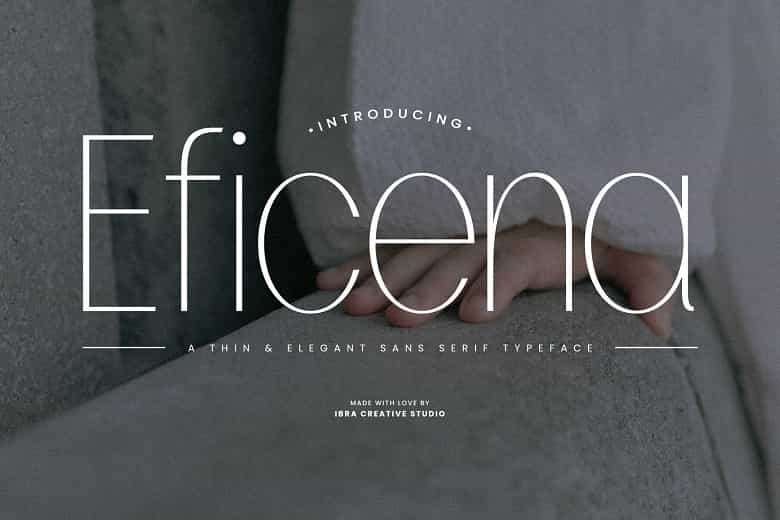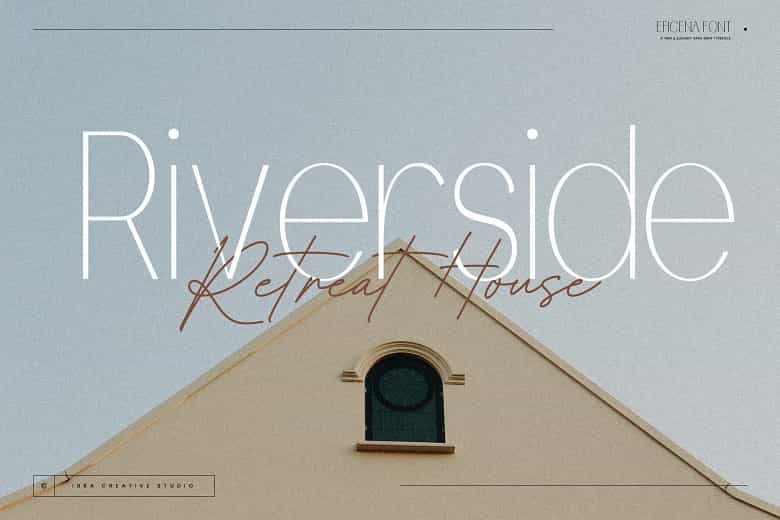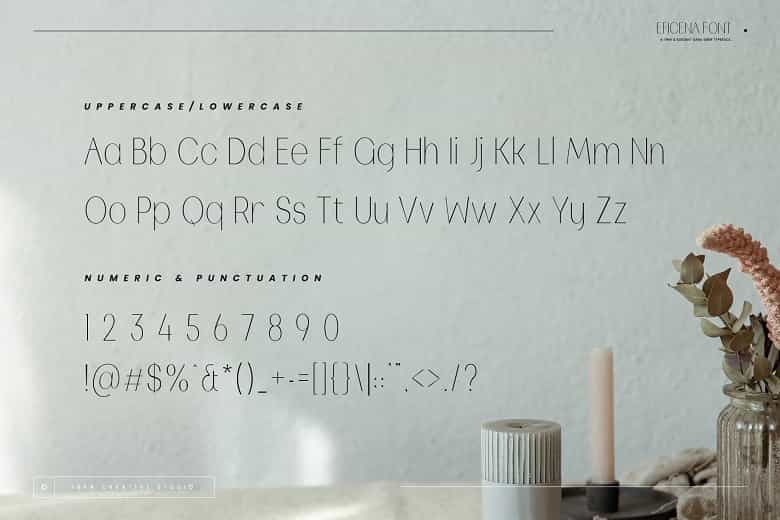
Eficena is a thin and graceful sans serif font, that gives a vision of nobility and tenderness with its slender strokes and smooth shapes. All the characters of the font Eficena reflect understated luxury, so the font will be ideal for projects, which need some refinement. It can be applied to luxury branding, editorial design or minimalistic layouts and gives it a touch of elegance.